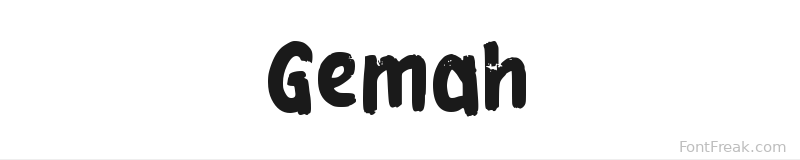
Gemah
Gemah is a distinctive display font designed by Wahyu Eka Prasetya, characterized by its playful and informal style. This font falls into the category of decorative typefaces, showcasing a unique handwritten appearance that evokes a sense of warmth and creativity. The strokes are bold and uneven, giving the font a hand-drawn quality that is both engaging and approachable. The contrast in stroke weight is moderate, providing a visual balance that enhances readability while maintaining a whimsical charm. The spacing between characters is generous, allowing for easy legibility, which is essential in various design applications.
The Gemah font is particularly well-suited for a variety of creative projects. It can be effectively used in wedding invitations, where its warm and inviting style can set the tone for a special celebration. Additionally, it works wonderfully for children's book covers, infusing a sense of fun and playfulness into the design. Restaurant menus can also benefit from the Gemah font, as its unique character can make the dining experience feel more casual and welcoming. Moreover, it is an excellent choice for social media graphics targeted at content creators looking to add a personal touch to their posts.
What sets the Gemah font apart is its ability to evoke emotions while remaining versatile across various contexts. Whether you're crafting invitations for a joyous occasion or designing eye-catching promotional materials, the Gemah font free download offers a fresh and vibrant option for any creative endeavor.